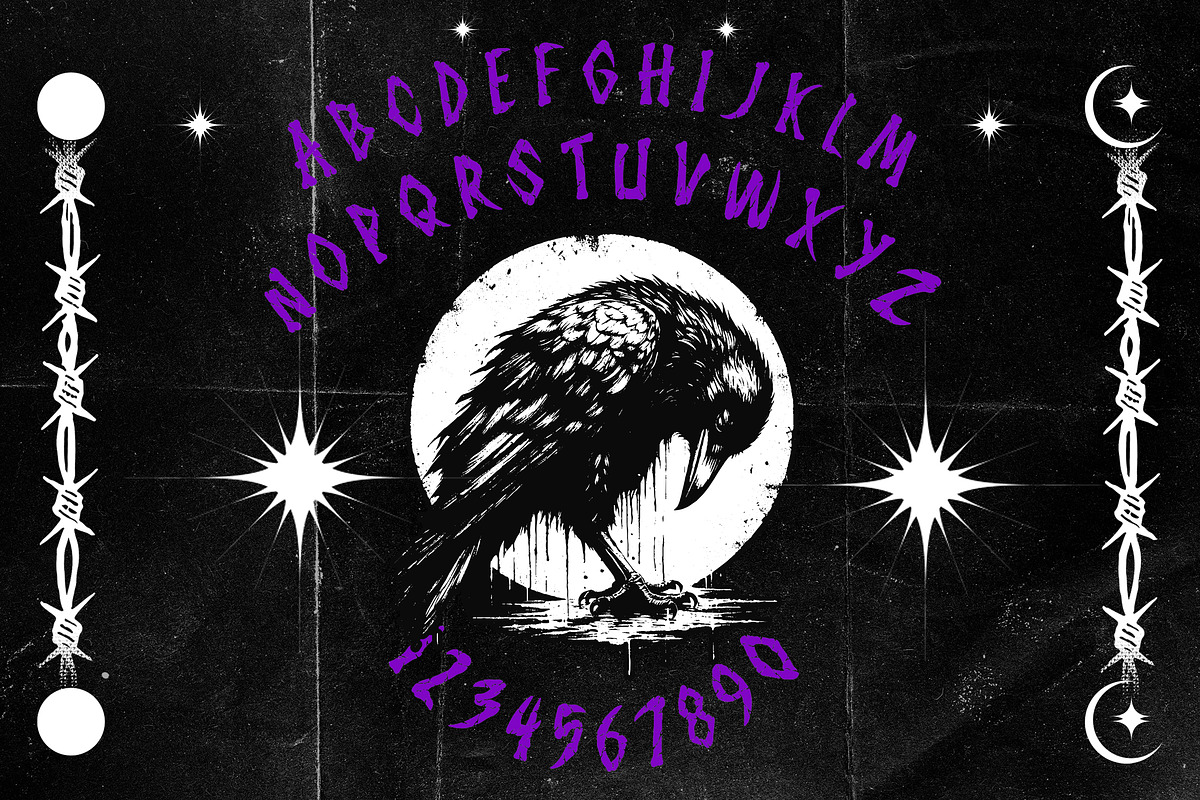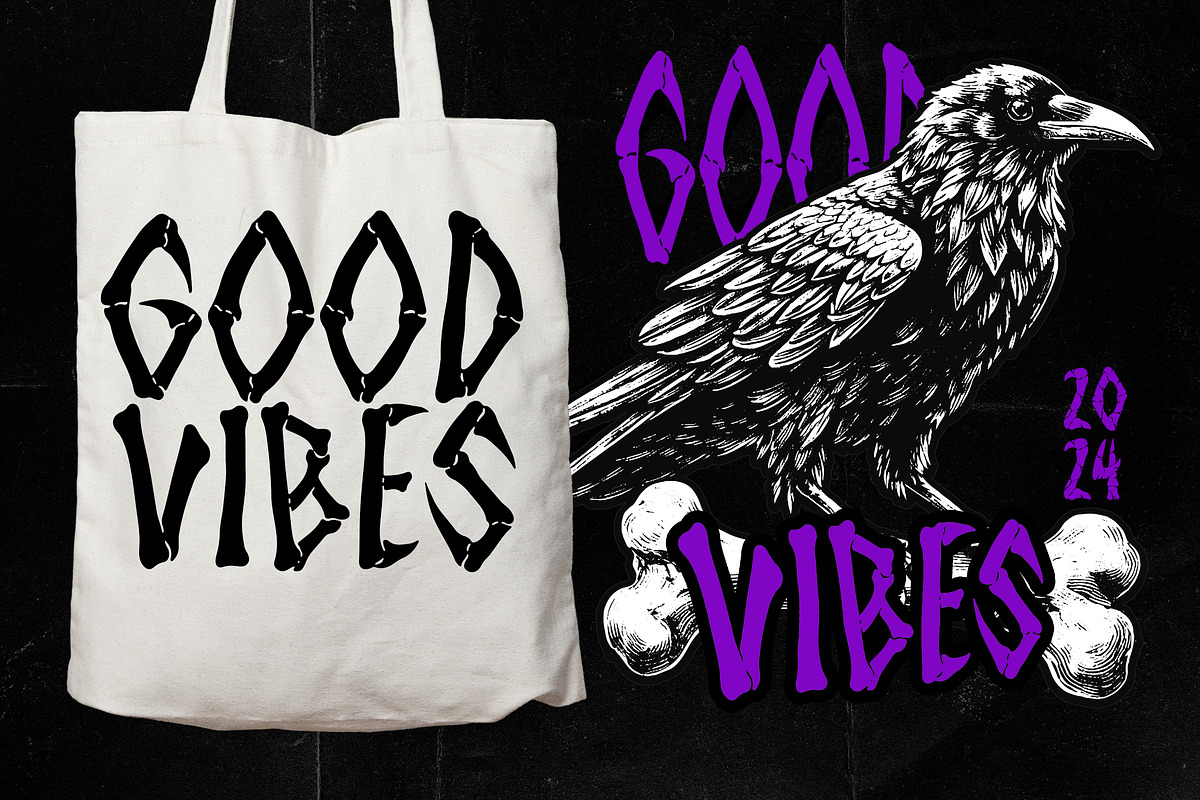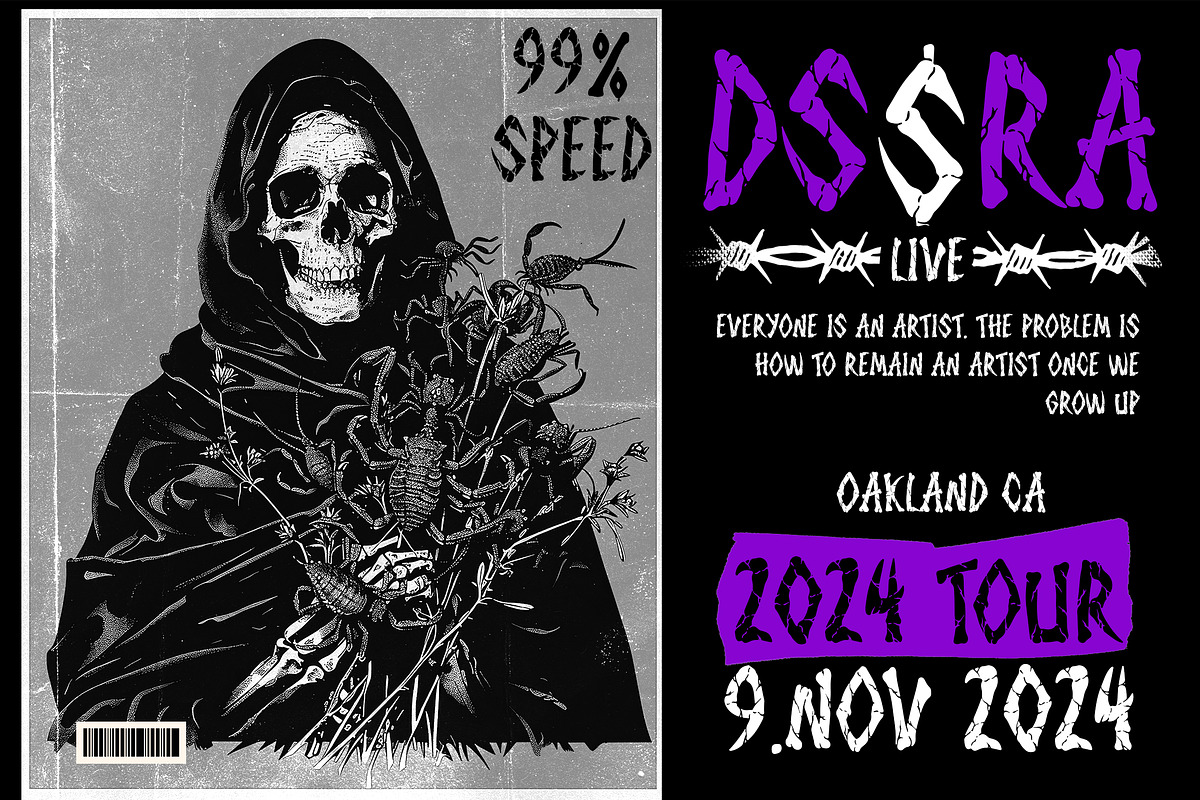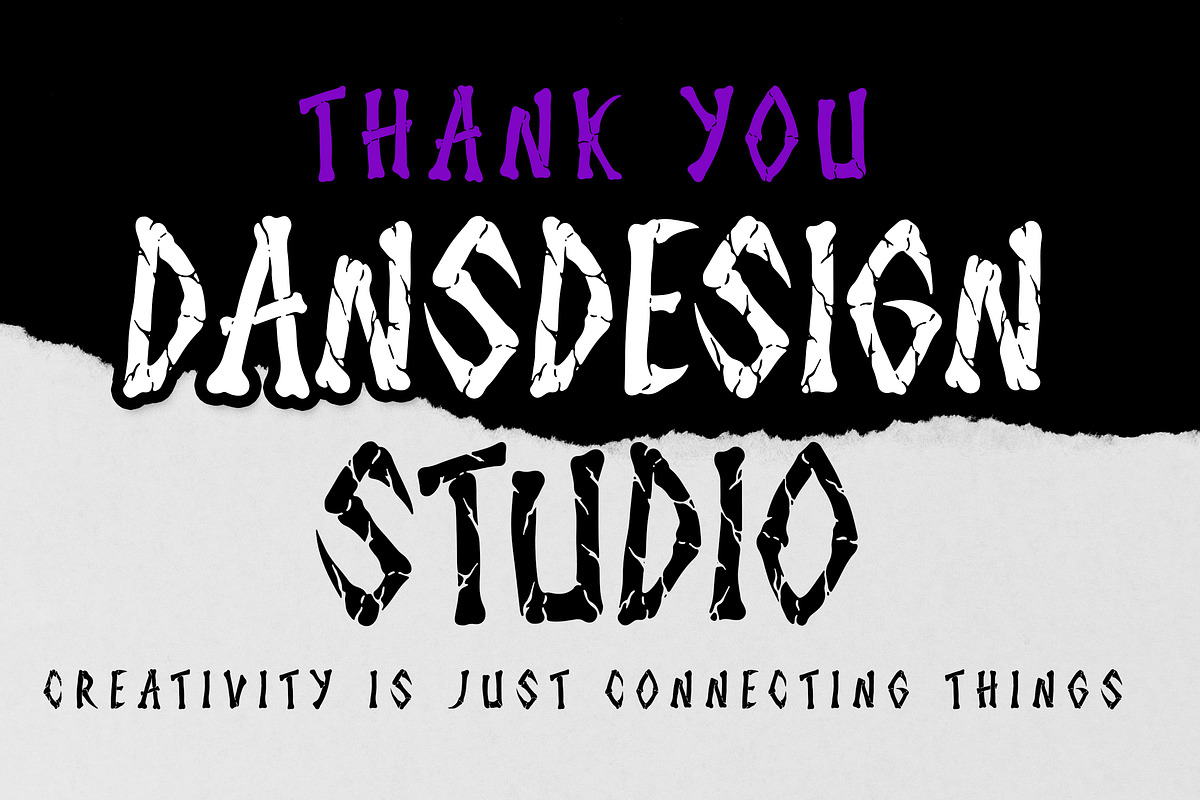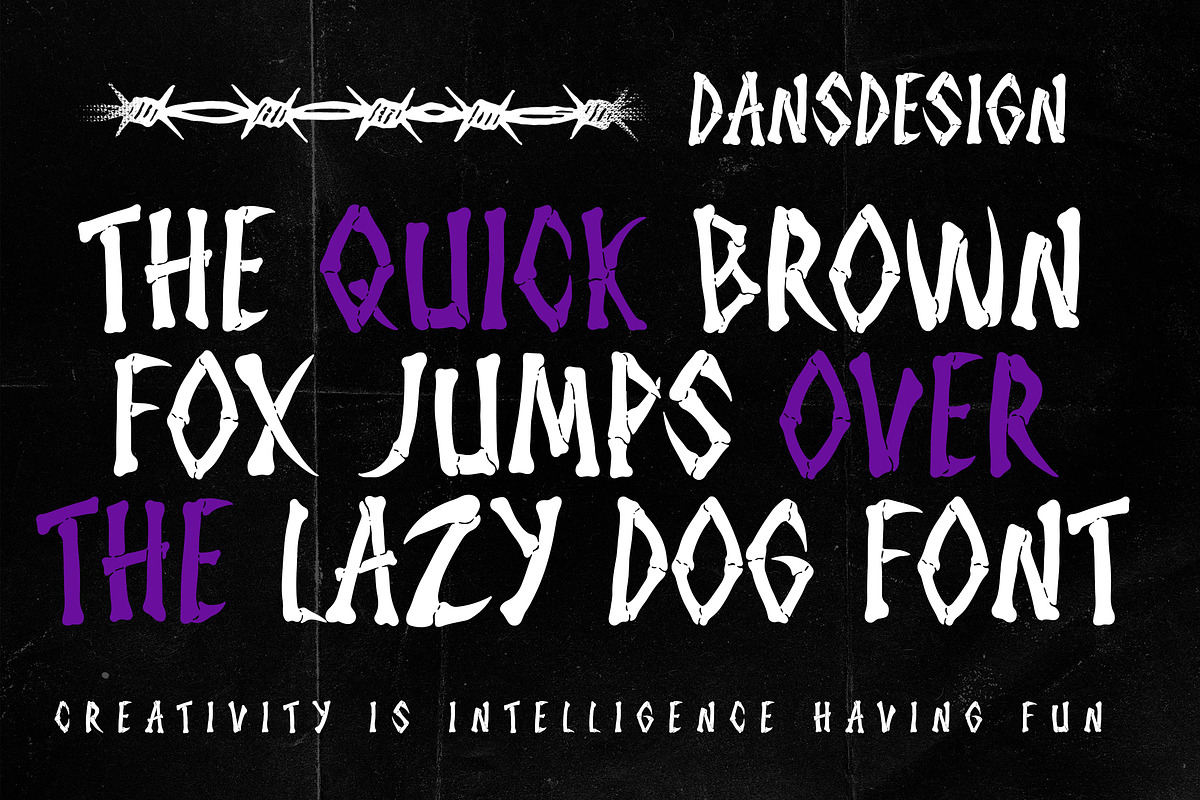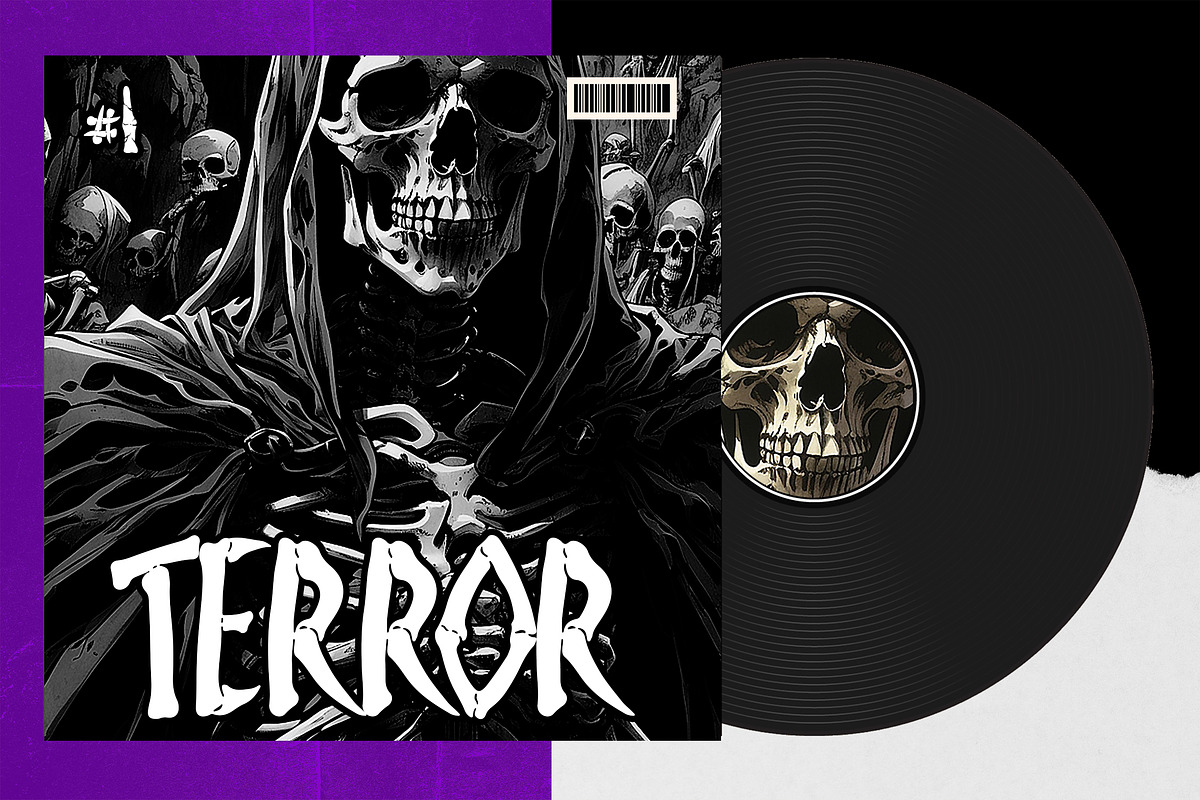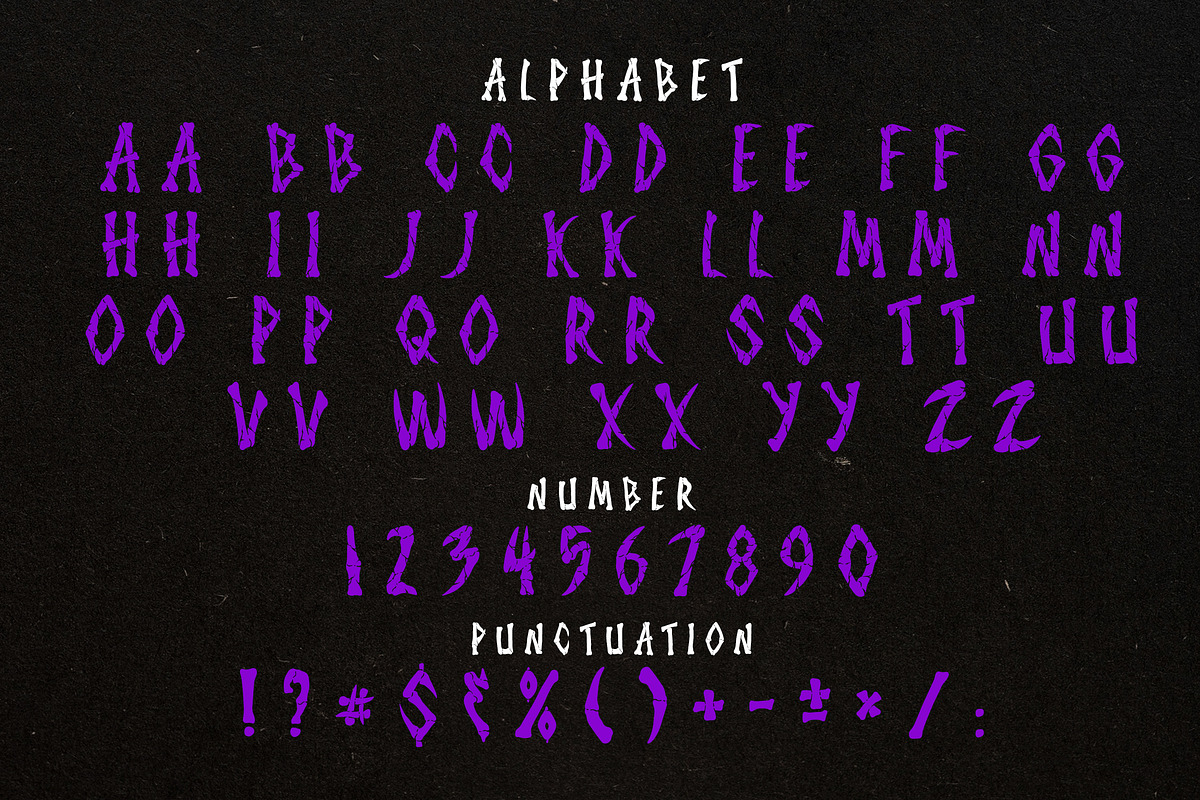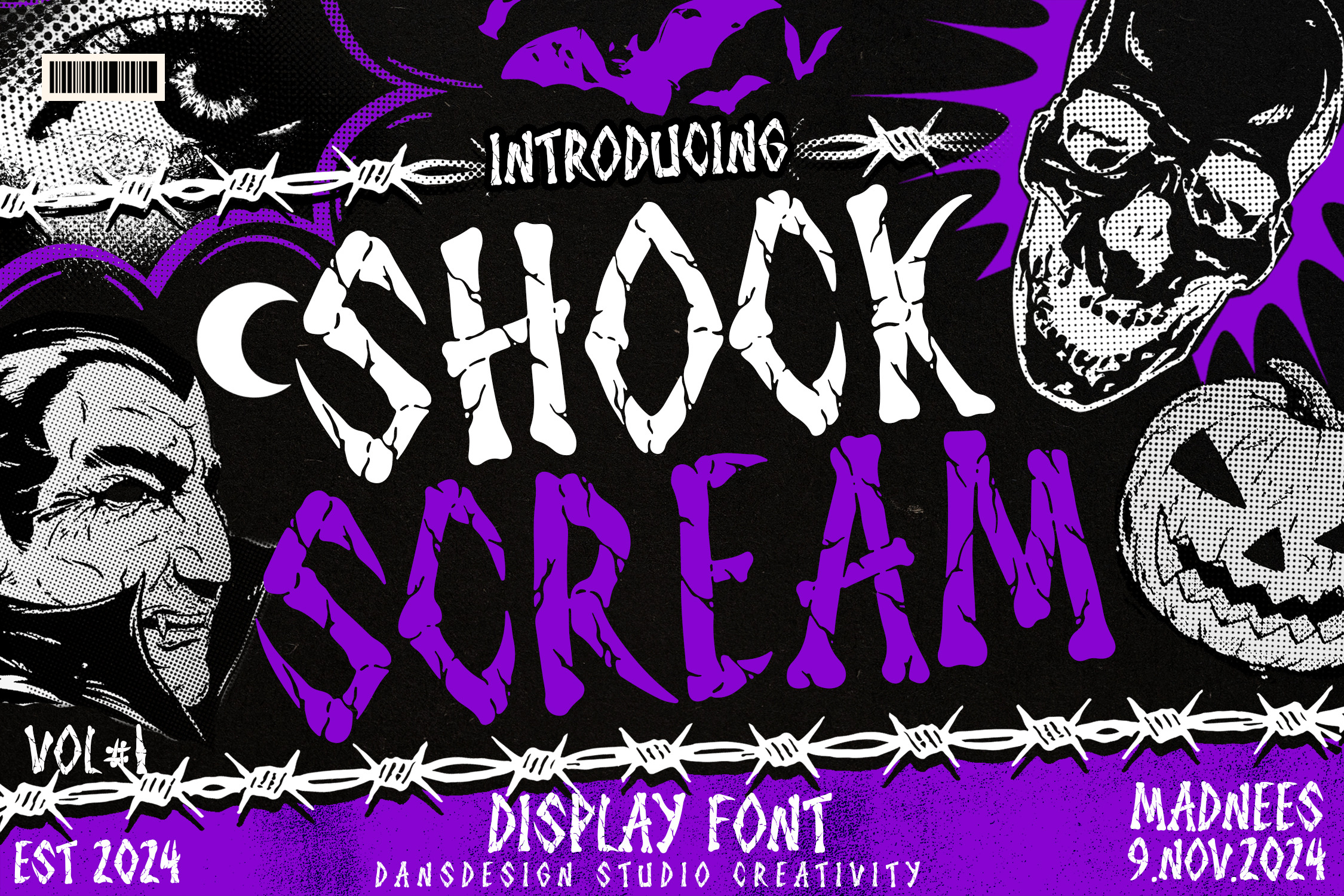
Shock Scream Horror Display Font
Shock Scream Horror Display Font a distinct, highly detailed. Marker Display Font. It would make a great choice for exquisite retro-urban designs, business branding, logos, Apparel designs, and more.